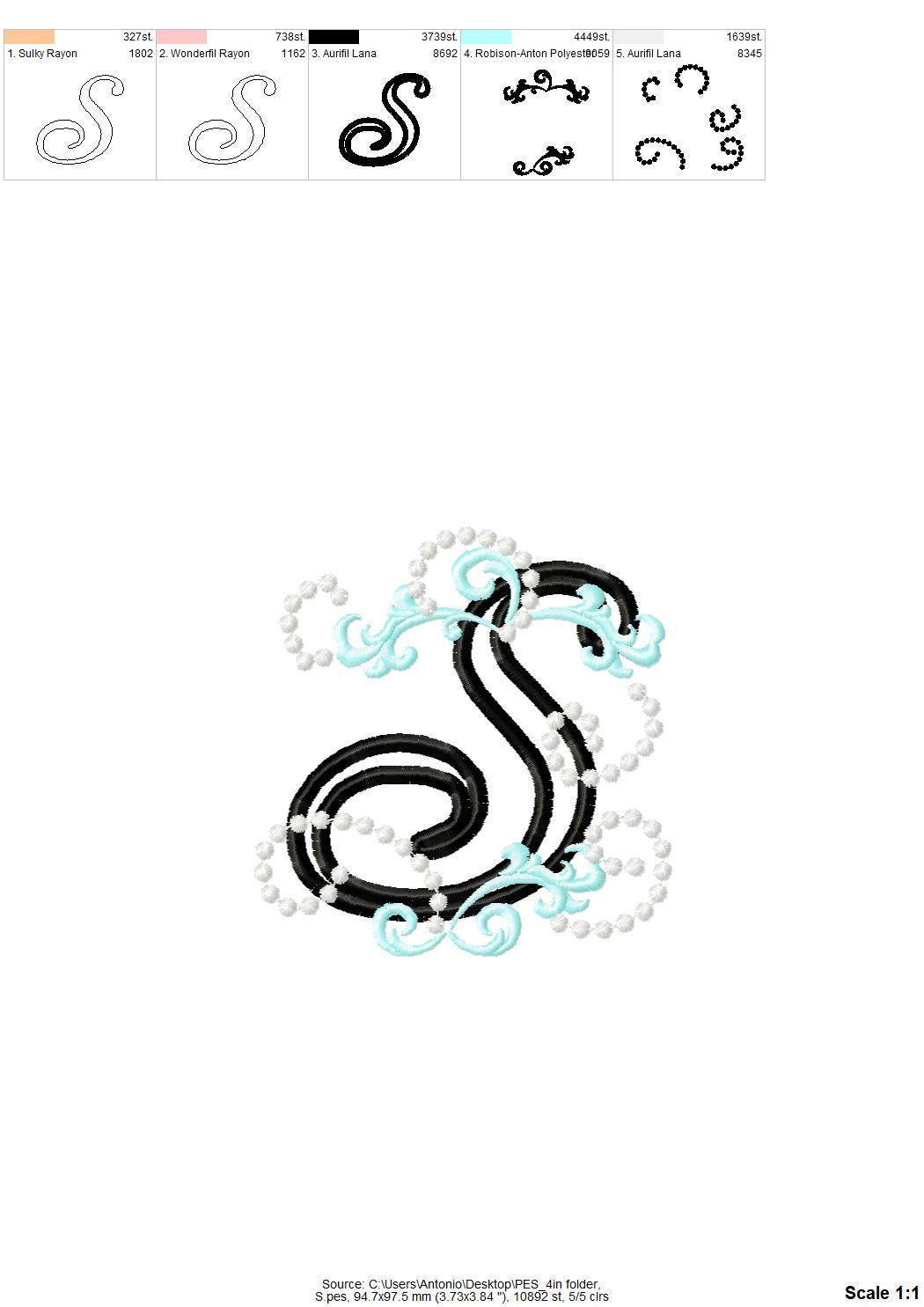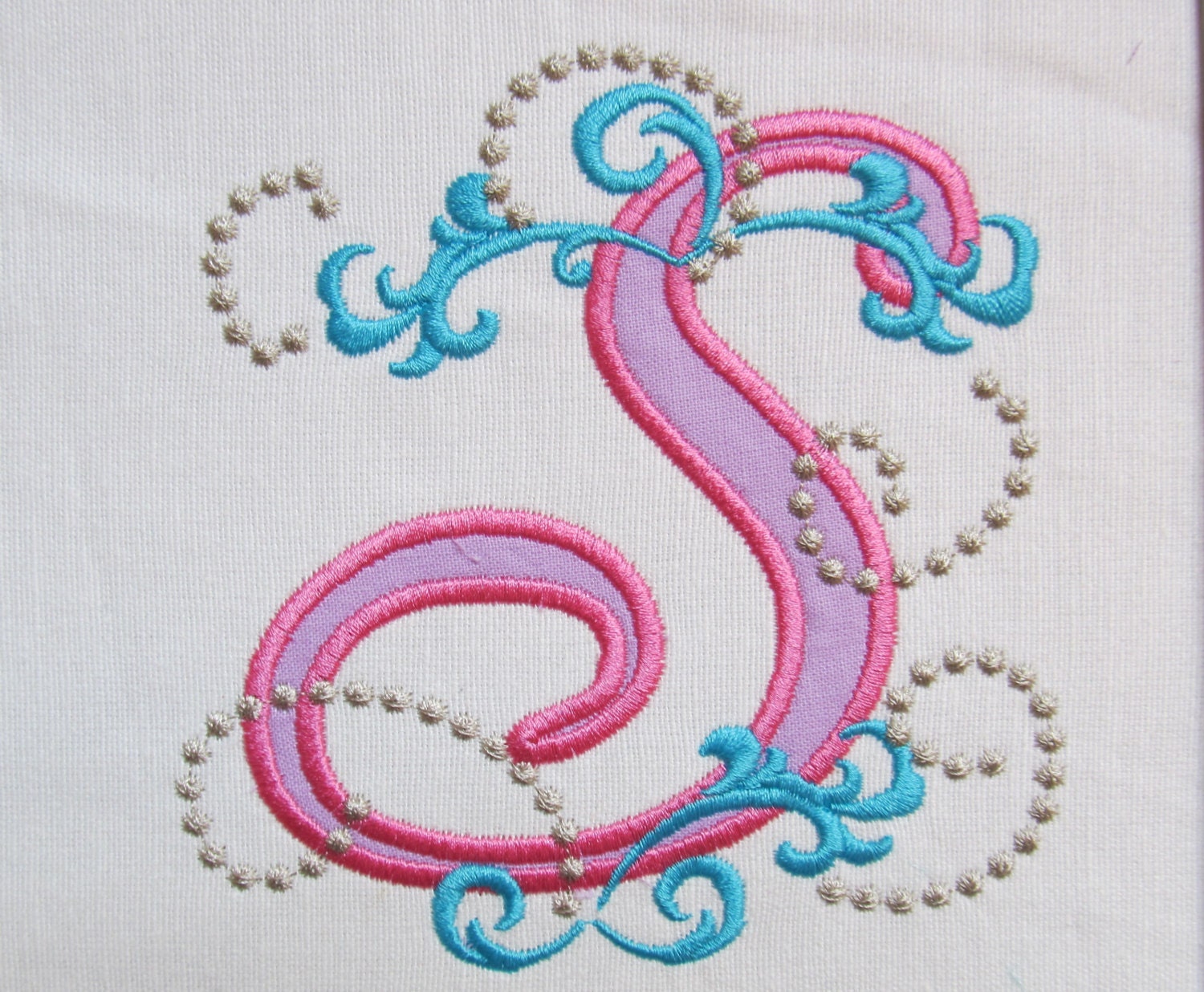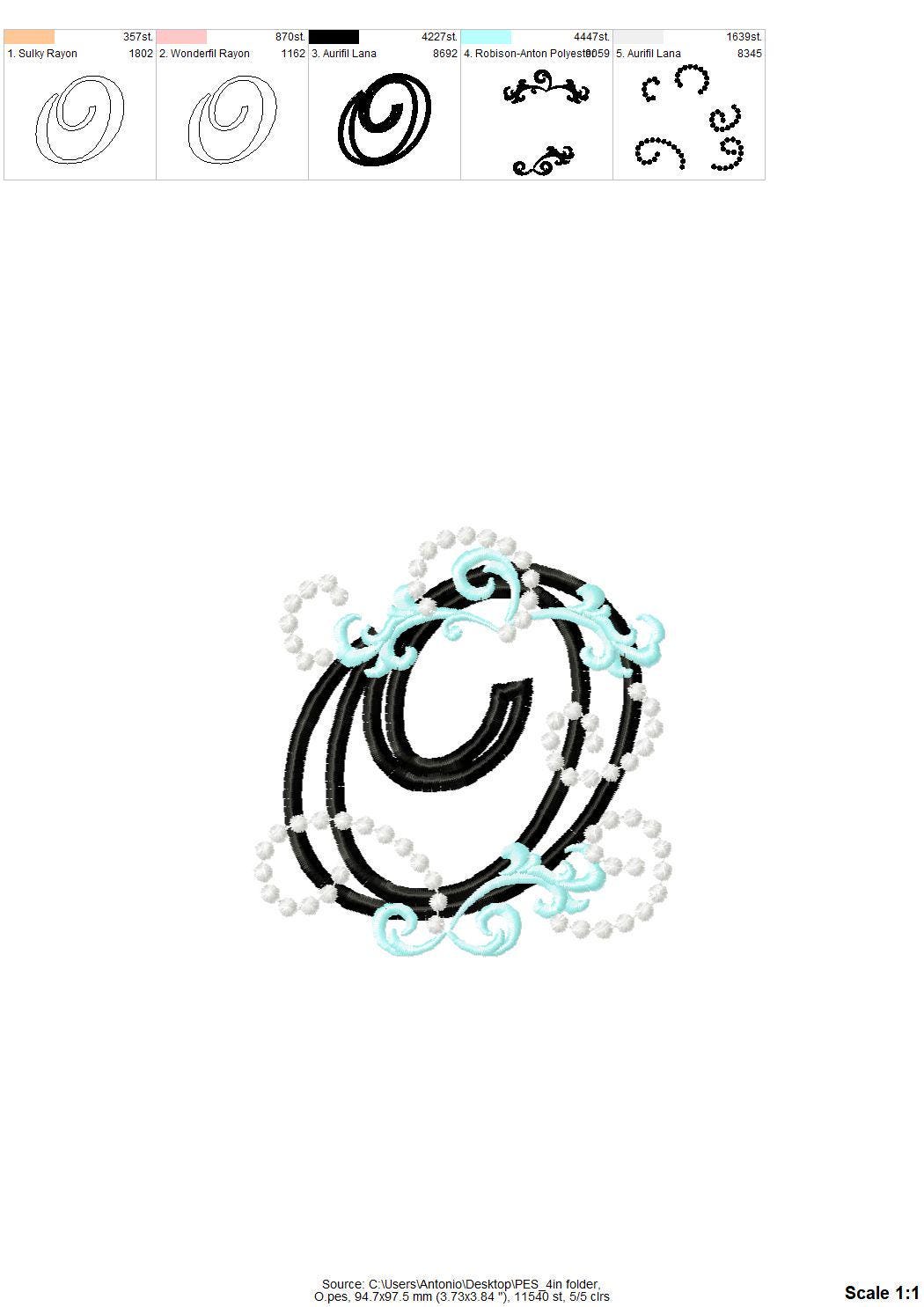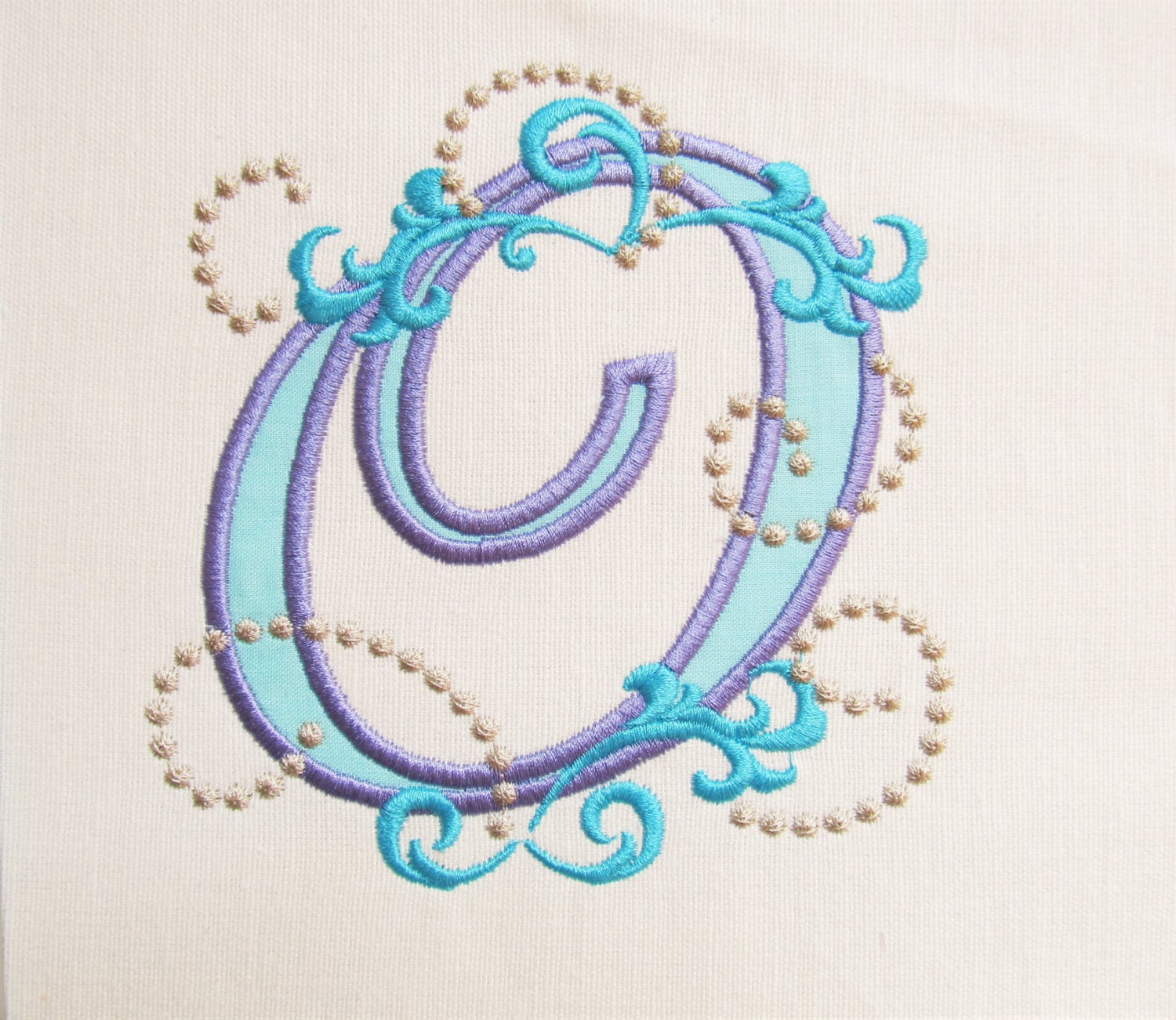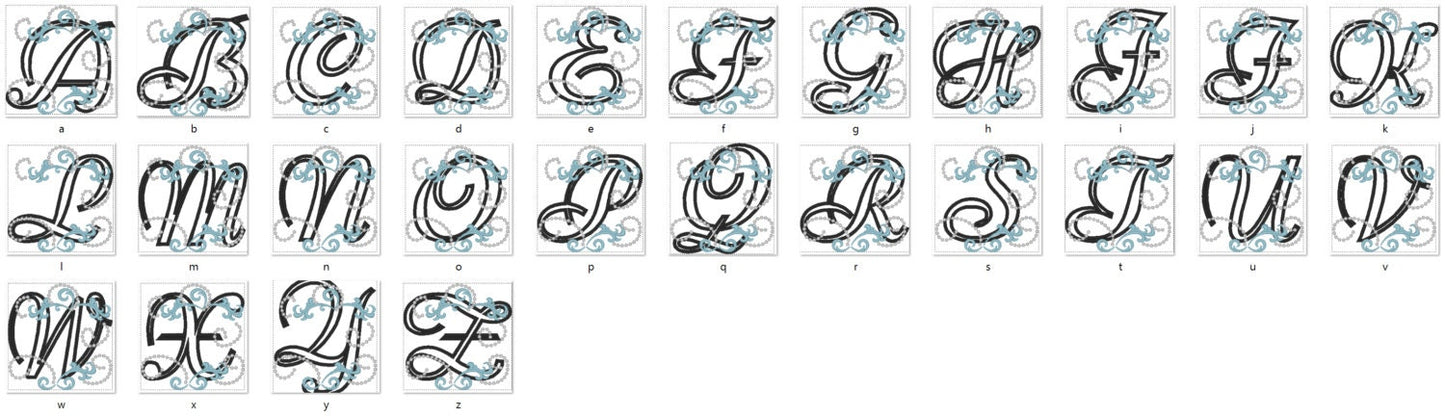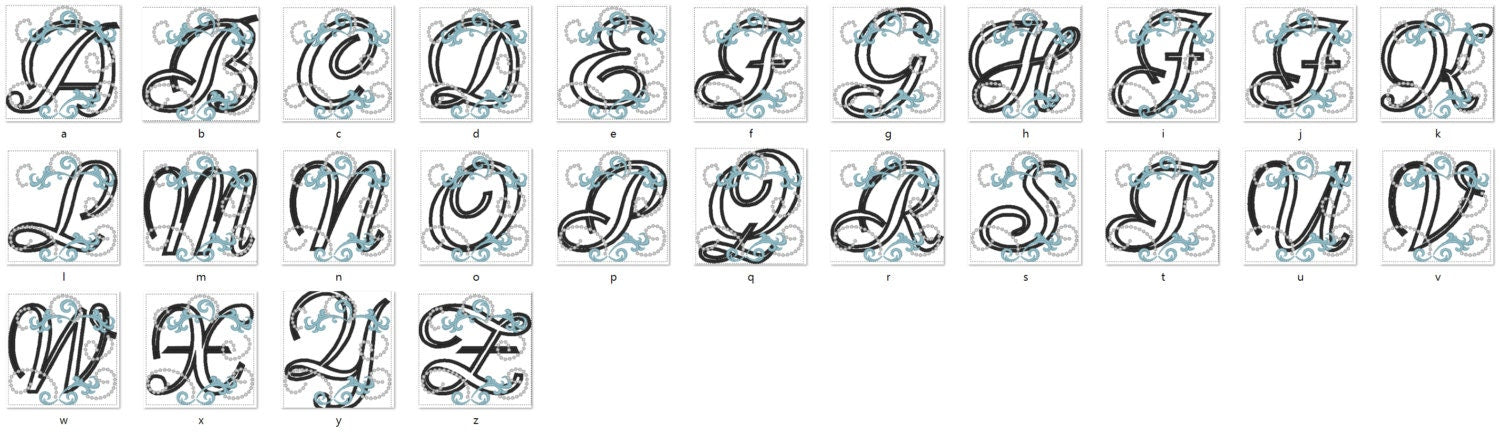
Curl Swirl Monogram Font
All 26 uppercase letters, A to Z, in two sizes: 4 and 5 inches. Each curly letter is stitched as an applique.
- Curly swirl applique monogram font
- Uppercase A to Z